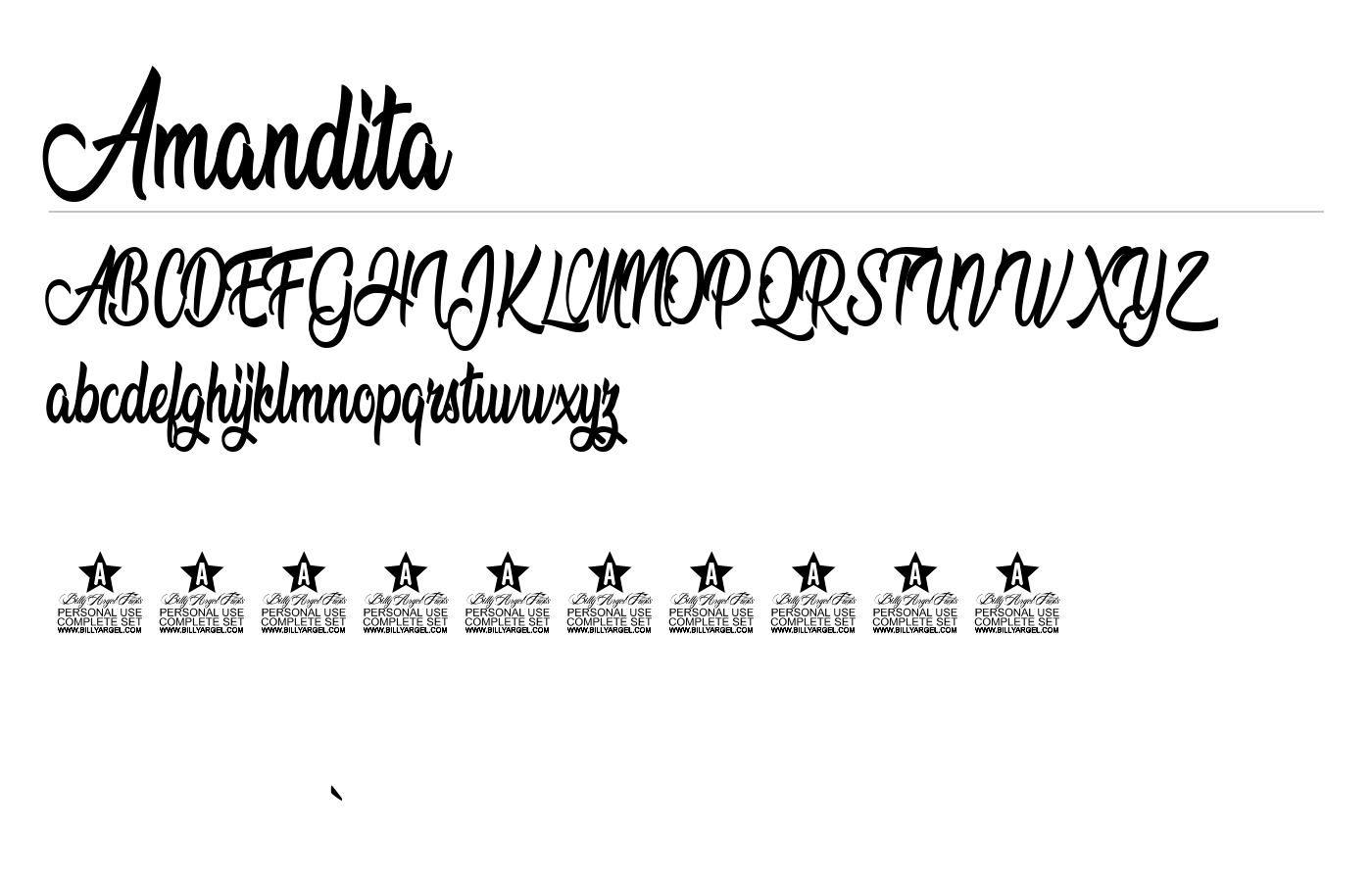
Amandita is a lively and elegant script font featuring smooth, flowing strokes with a hand-lettered feel. Its medium weight and tall x-height give it good readability while maintaining graceful, decorative flourishes, making it perfect for branding, invitations, and creative headlines where a personal and stylish touch is desired. This font blends charm and sophistication, ideal for projects that need a warm, inviting character.
Amandita Font
About Amandita Font